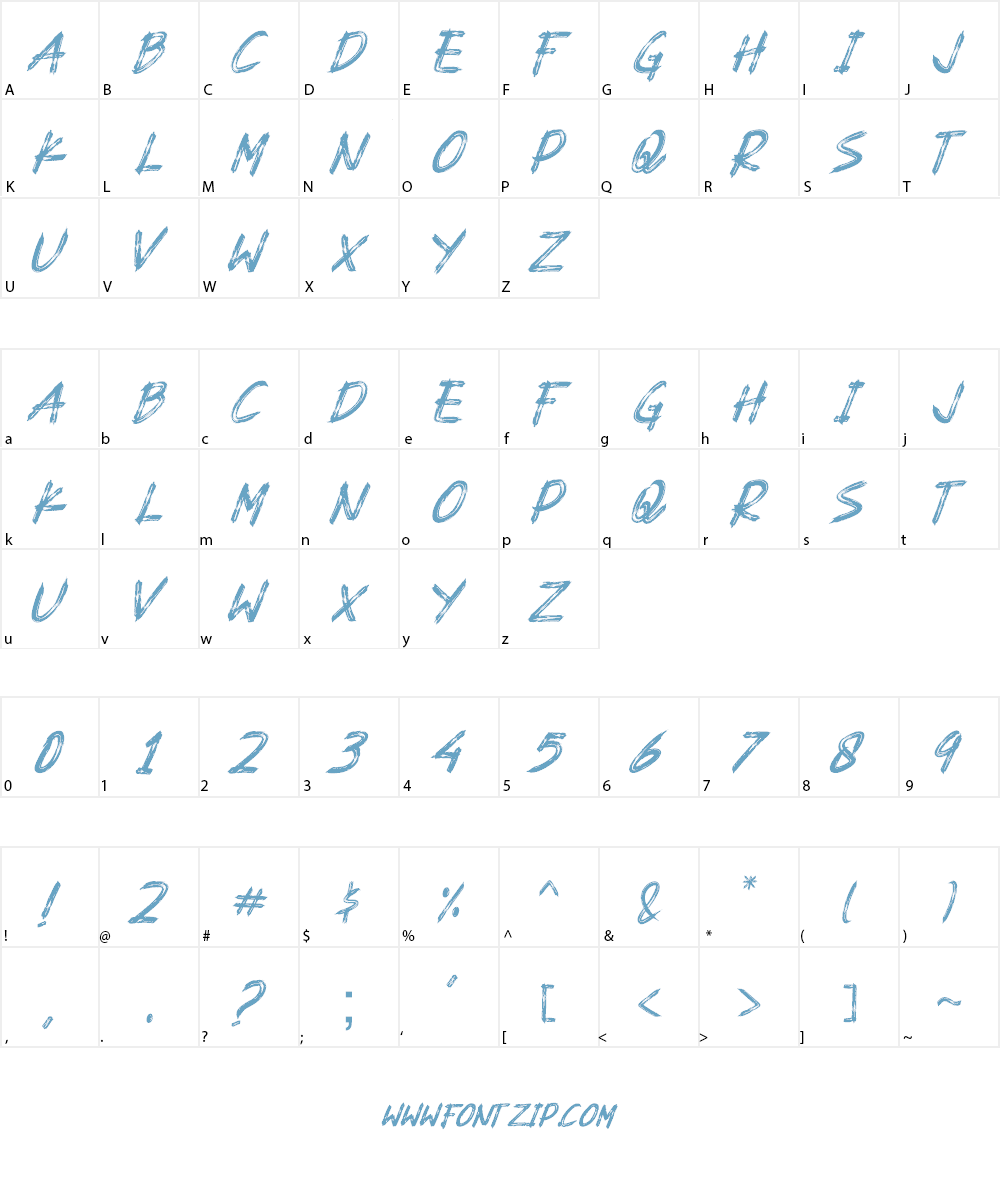
Doubtless Brush Typeface Demo Font, with authentic hand brush imperfections and a very bouncy baseline It has a perfectly paired complimentary marker font , and a super handy set of bonus Swash. Ideal for logos, handwritten quotes, product packaging, header, poster, merchandise, social media & greeting cards.
Features:
Basic Latin A-Z
Numbers
Alternate and Ligature
Swashes